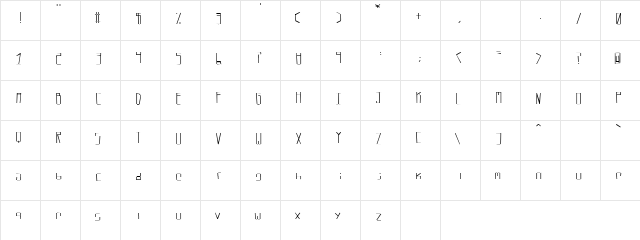
Wadlow's Son Regular
Design Context for Wadlow's Son Typeface
Wadlow's Son is a composed and adaptable typeface that performs quietly and consistently across a wide range of design contexts.